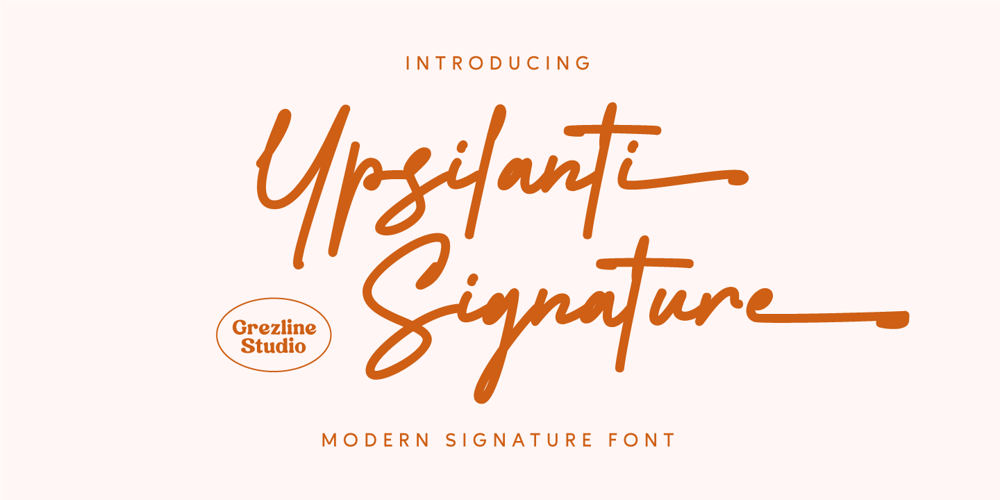
Ypsilanti Signature Font Family was designed by Akhmad Reza Fauzi and published by Grezline Studio. Ypsilanti Signature contains 1 styles and family package options. Ypsilanti Signature is a modern monoline signature script font. This type of font perfectly made to be applied for fashion-related design, but you can use it in other various formal forms such as invitations, labels, logos, magazines, books, greeting / wedding cards, packaging, stationery, labels or any type of advertising purpose.Feature :- Alternate and Ligature- Multilingual Language- Works on PC & Mac- Simple installations- Accessible in the Adobe Illustrator, Adobe Photoshop, Adobe InDesign, even works on Microsoft Word.Thank you!Grezline Studio – Akhmad Reza Fauzi